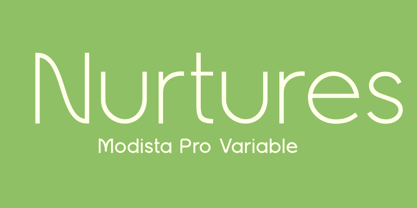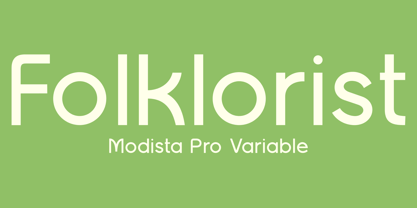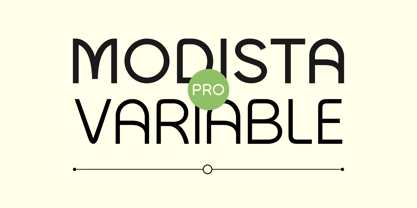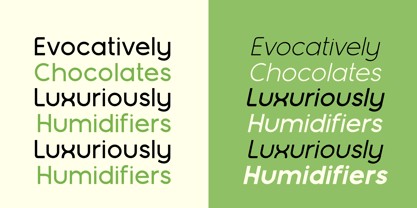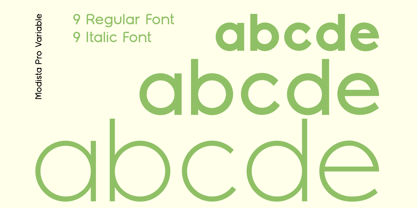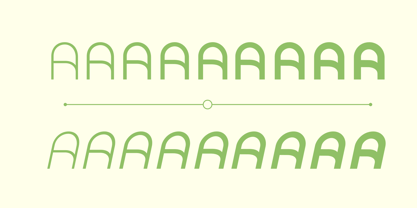
Modista Pro Variable
von Zafira Type
Die Schriftfamilie Modista Pro Variable wurde von Su Hirno entworfen und von Zafira Type veröffentlicht. Modista Pro Variable enthält 2 Stile und Familienpaketoptionen. Mehr über diese Familie
Modista Pro is an elegant high-contrast serif typeface designed for editorial beauty and luxury branding. With graceful curves, sharp terminals, and refined proportions, it brings timeless sophistication to modern typography.
Modista Pro comes in 9 weights, ranging from Thin to Black, including matching Italic styles for each weight. It also features a Variable Font version, allowing seamless control over weight for responsive design needs.
Perfect for fashion magazines, logos, wedding invitations, packaging, and high-end identity systems, Modista Pro combines expressive elegance with powerful flexibility.
• 9 weights: Thin to Black
• Matching Italics for all weights
• Variable Font (fully adjustable weight axis)
• Ideal for editorial layouts, branding, and luxury packaging
Designer: Su Hirno
Aktuelle Foundry: Zafira Type